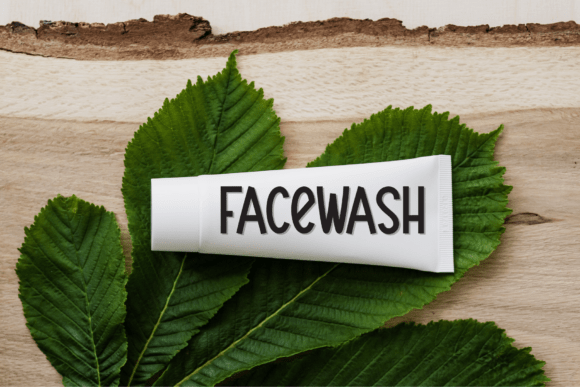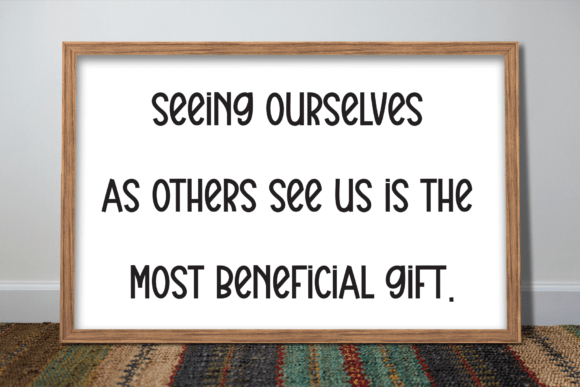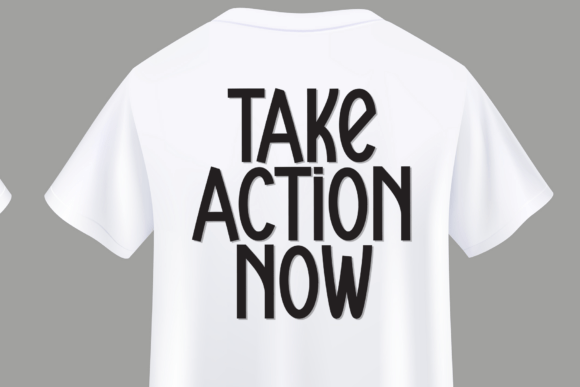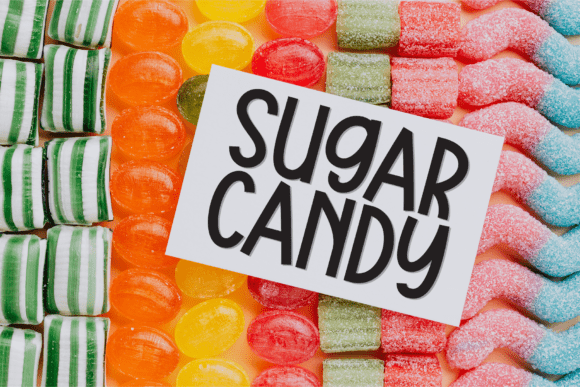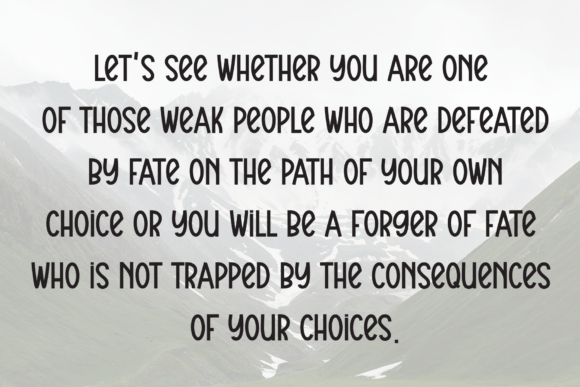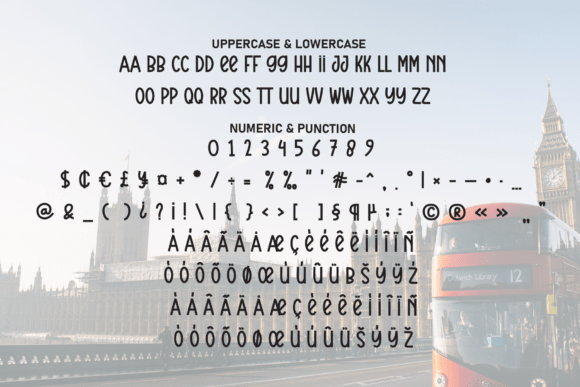
Discovering the Perfect Harmony: London Melody Font
As a designer, there’s nothing quite like the thrill of stumbling upon the perfect font to elevate your creative project. It’s that ‘aha’ moment when all the elements come together, and your vision takes shape. For me, it was the London Melody Font that made all the difference. Its unique blend of modernism and urban edge immediately caught my attention, and I knew I had to dive deeper.
With its tall, condensed letters and subtle curves, the London Melody Font is the epitome of sophistication. Whether you’re working on a magazine headline, poster, or branding project, this font is sure to add a touch of cosmopolitan flair to your design. And the best part? It’s a high-quality, free download that’s available for designers to use as a valuable resource.
Key Features of London Melody Font
- Unique, elegant design perfect for creative projects, including wedding invitations, posters, and more.
- High-quality font with a transparent background, ideal for use on images or as a design resource.
- Designed with a sophisticated, modern aesthetic, featuring intricate details and subtle flair.
Honest Review: London Melody Font
I recently had the chance to work with the London Melody Font, and I must say it’s been a delightful experience. As a designer, I’m always on the lookout for high-quality design resources that can elevate my creative projects.
What works well with this font is its unique blend of classic and modern elements. The London Melody Font has a sophisticated and elegant feel to it, making it perfect for any project that requires a touch of sophistication.
- ✨ High-quality design: The font is well-designed, with a clear and crisp typography.
- ✨ Transparent background: The font has a transparent background, which makes it easy to layer with other design elements.
However, there are a few limitations to consider. The font is only available in a limited number of weights and styles, which may not be ideal for designers who require a wider range of options.
⚠️ Limited font weights and styles.
Overall, I’m impressed with the London Melody Font, and I would definitely recommend it to designers who are looking for a high-quality, free design resource for their creative projects.
The London Melody Font is a high-quality, free download design resource perfect for creative projects. Its transparent background makes it an ideal choice for designers looking to add a touch of elegance to their designs.
Getting the Most Out of London Melody Font
To get the most out of the London Melody Font, try using it in combination with other design elements, such as textures and graphics. You can also experiment with different font sizes and colors to create a unique look.
The London Melody Font is perfect for various design projects, including:
- Wedding invitations
- Brochures
- Posters